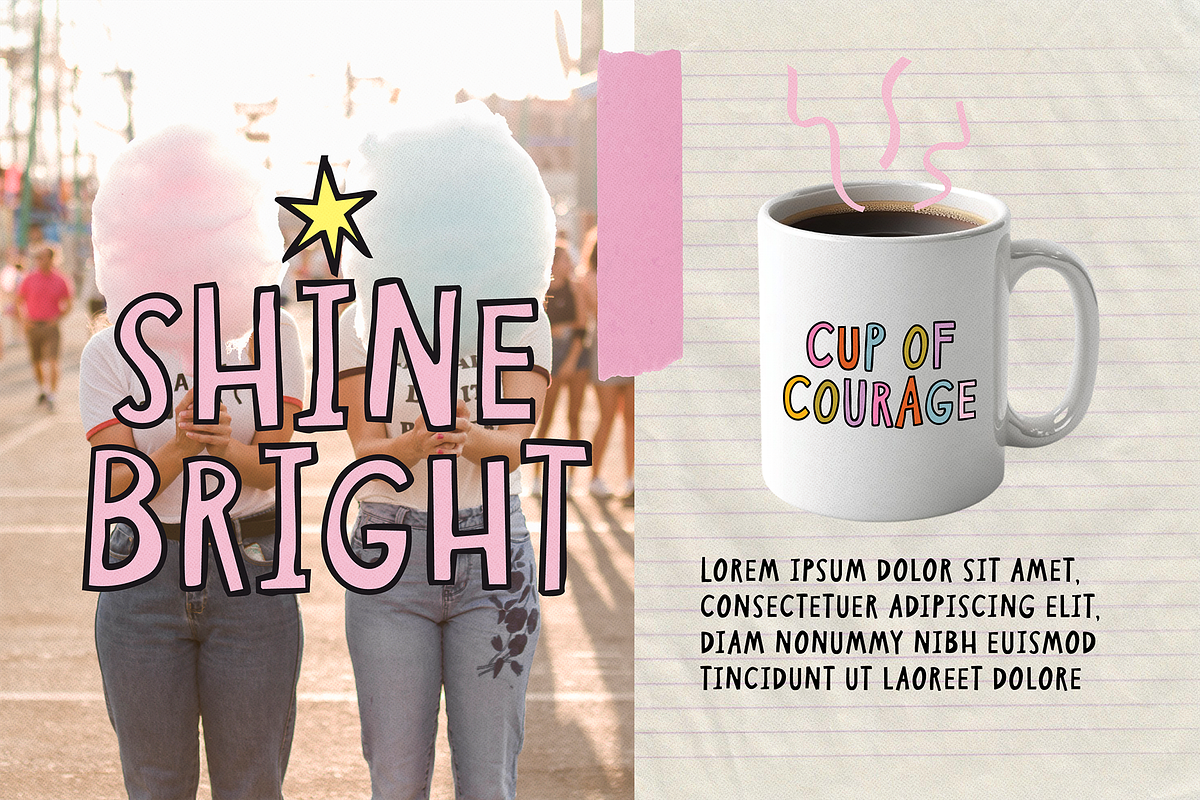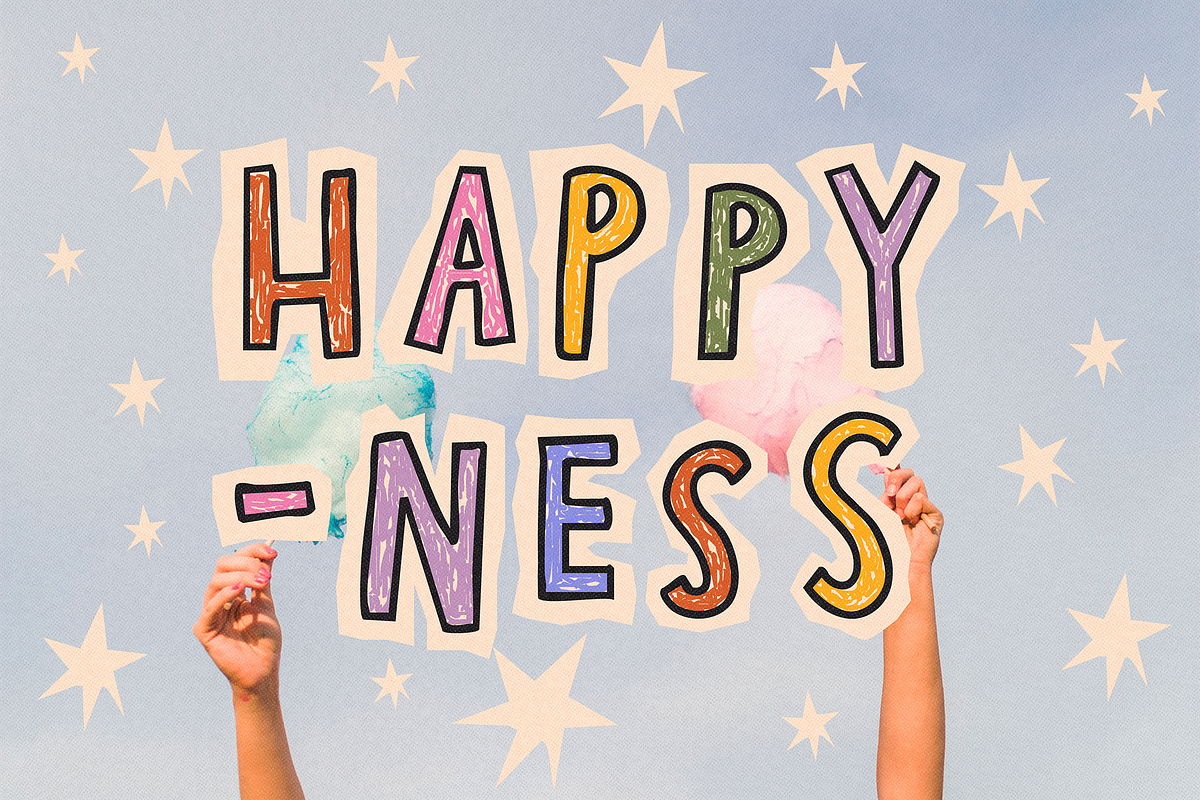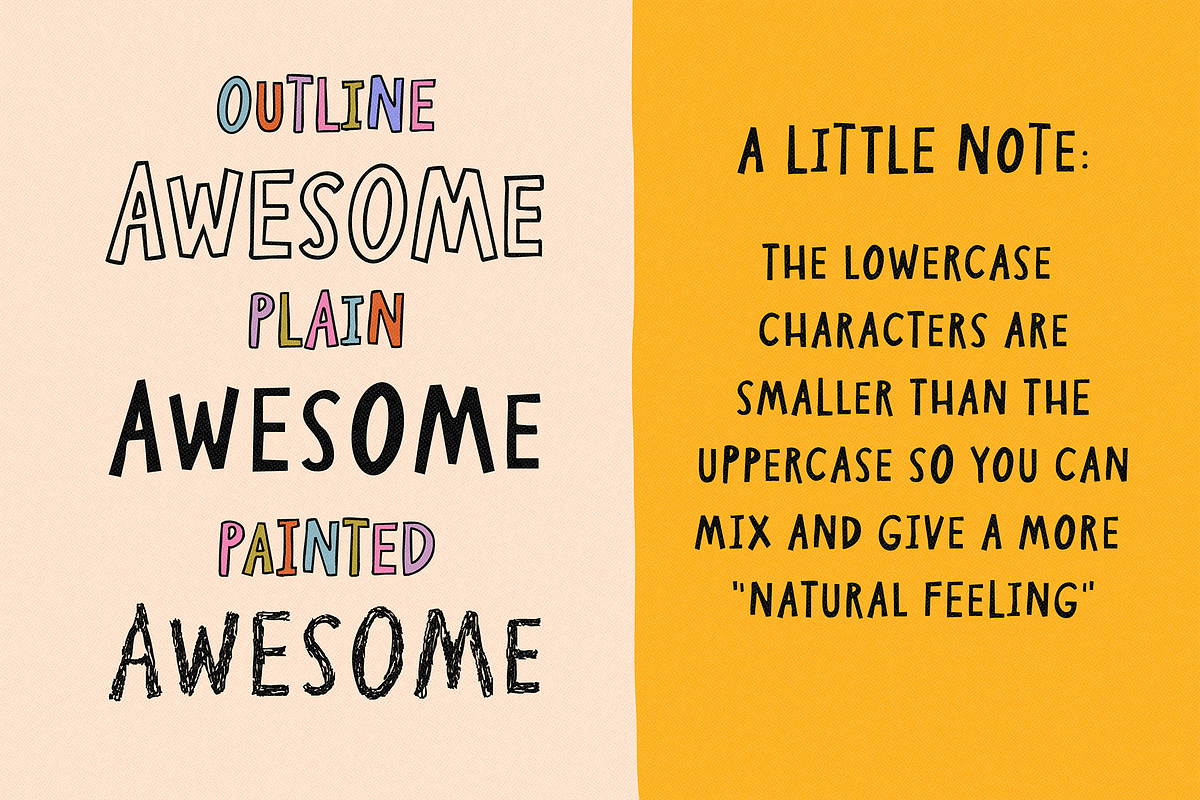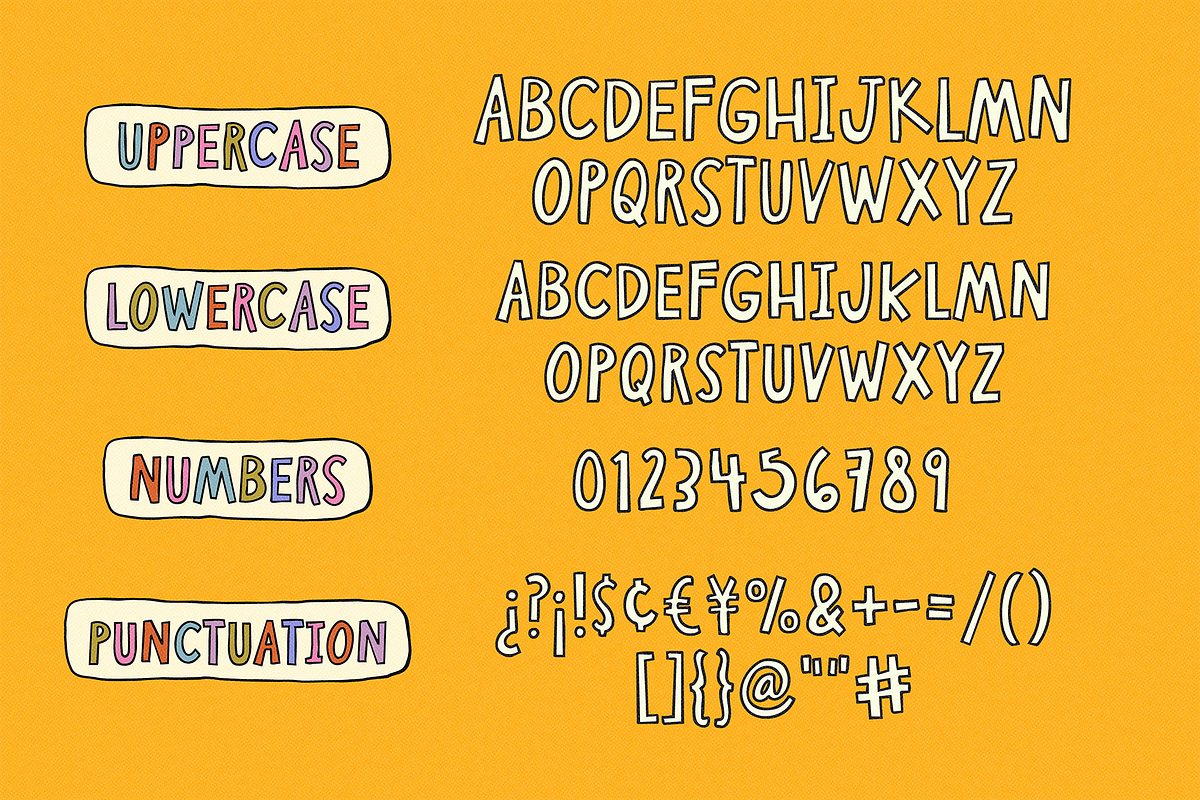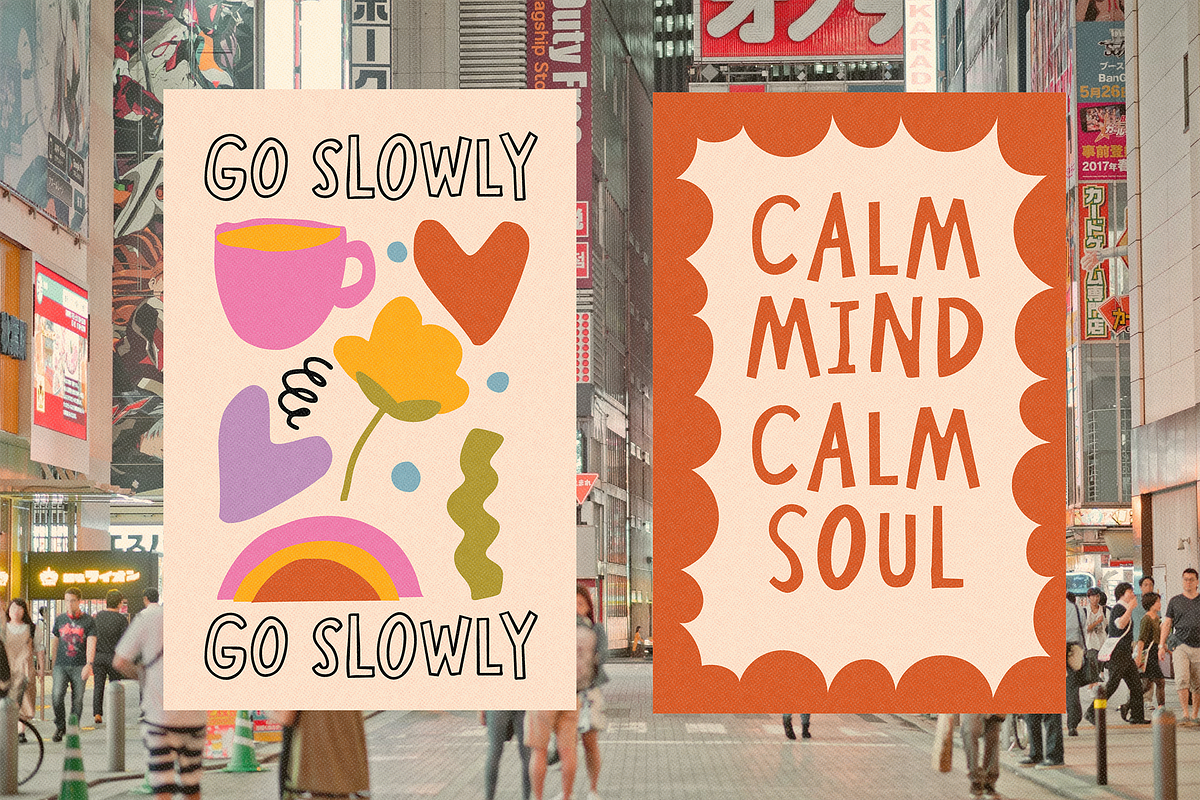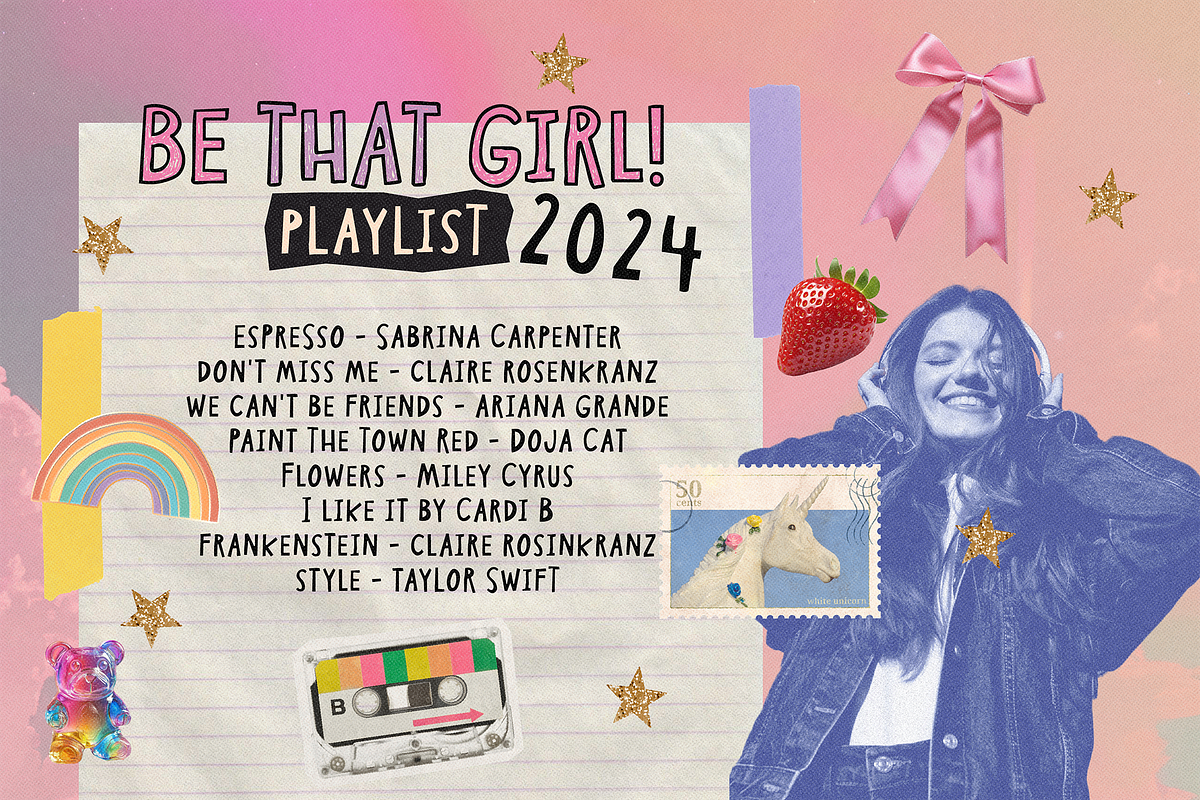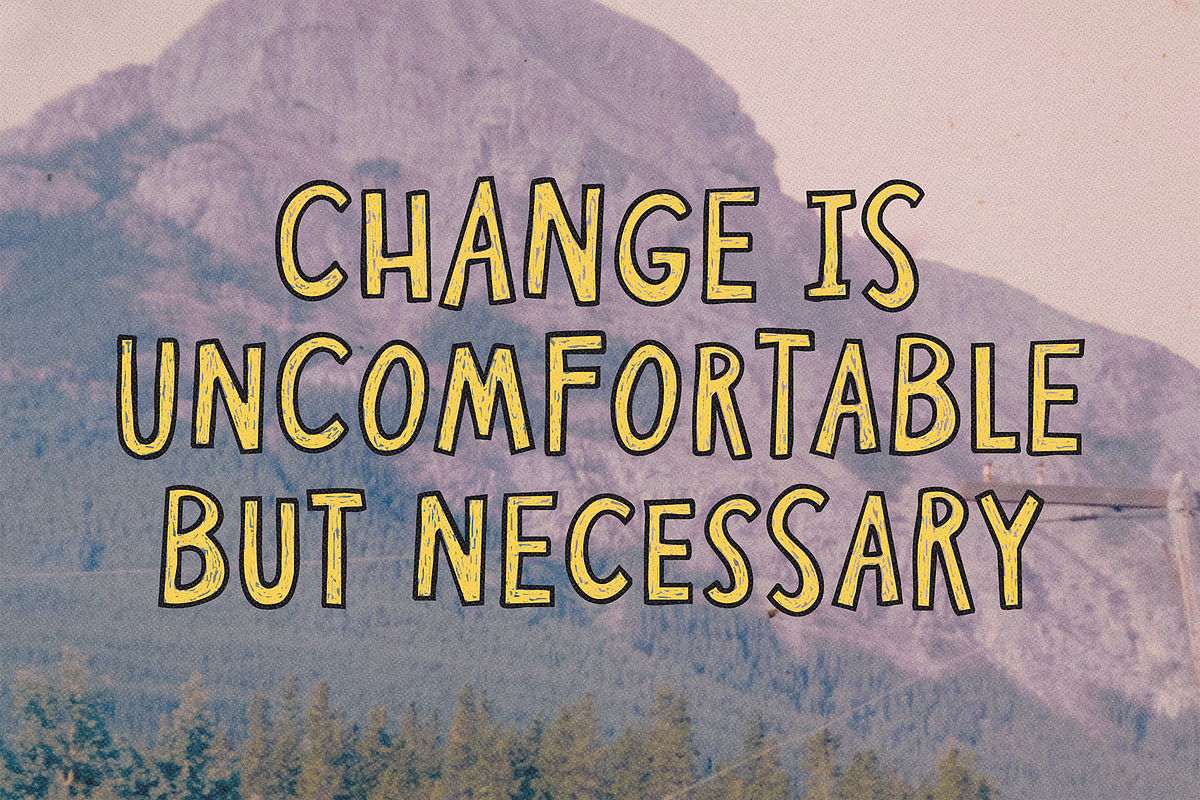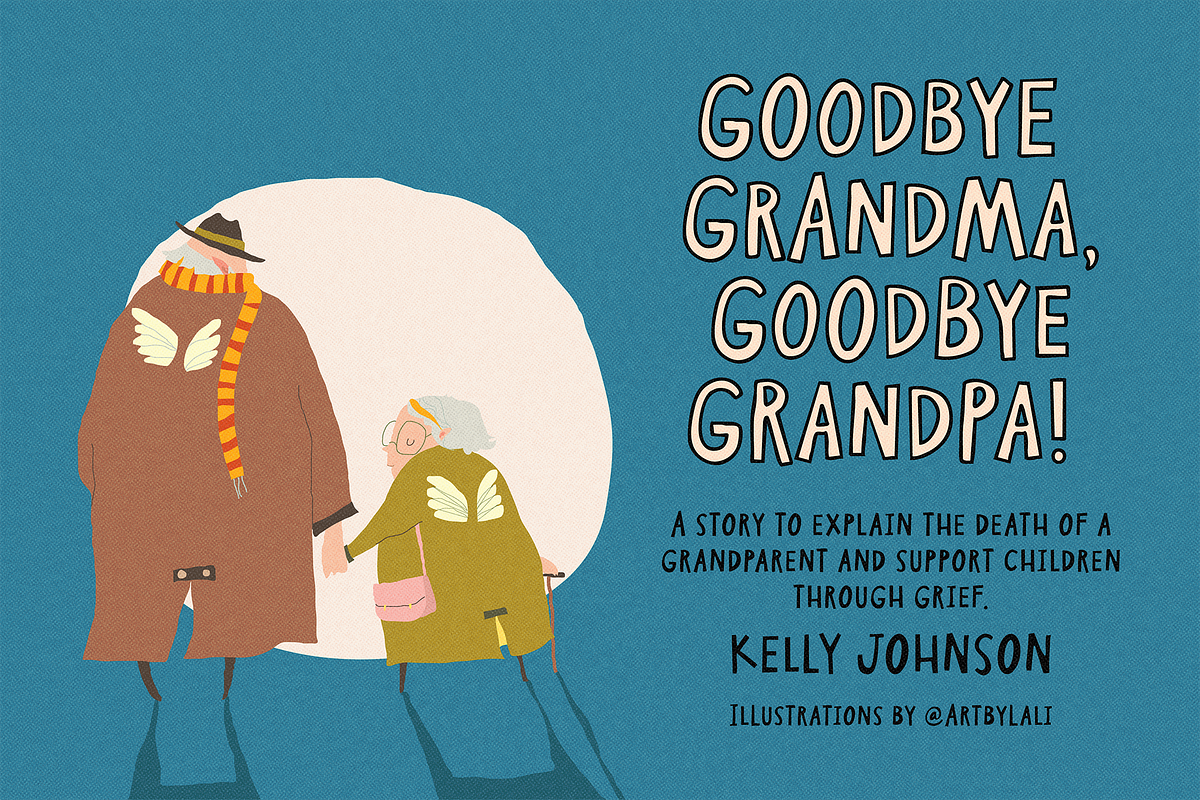
LEMON MARKET | PLAYFUL FONT
LEMON MARKET is a fresh, fun, and versatile handmade font, perfect for adding an authentic and dynamic touch to your projects. Its irregular and playful style makes it ideal for quotes, branding, social media, stationery, stickers, packaging, and more. Includes 3 versions for extra creativity!
Since it has three versions, it’s very versatile and can even be a great choice for children's books or brands and products for kids due to its irregular, playful, and handmade feel.
✷ Mix uppercase and lowercase letters for a natural, irregular vibe—some characters are the same, while others are slightly smaller for an authentic handmade look.
✷ Use the 3 symbols included to make cute/cool compositions.
- Period Centered · – Star
- Greater Equal symbol ≥ – Heart
- Less Equal symbol ≤ – Star 2
If you're looking for a font with personality, LEMON MARKET is the perfect choice to bring your designs to life